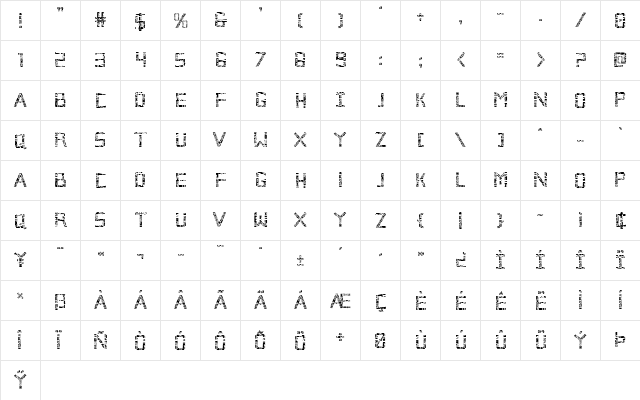
Broken Cyborg Regular
Design Context for Broken Cyborg Typeface
Broken Cyborg is a composed and adaptable typeface that performs quietly and consistently across a wide range of design contexts.